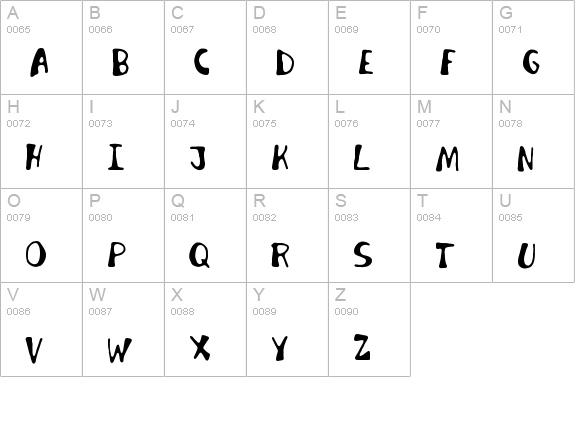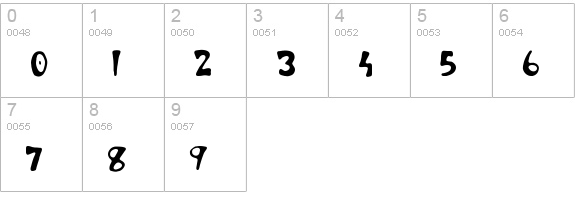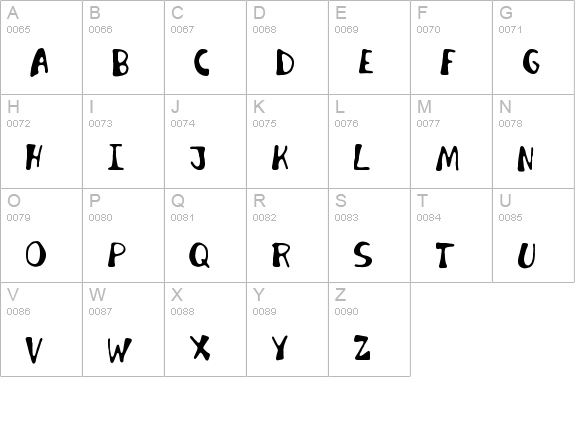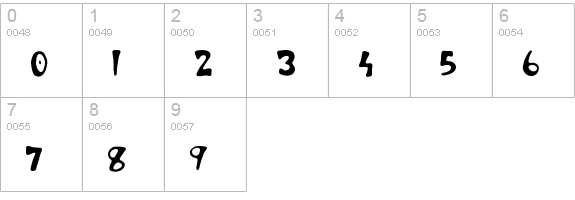
Invader Candy Font Details
Invader Candy font is a whimsical and playful typeface that is perfect for adding a touch of fun to any design project. With its charming and quirky letterforms, this font captures the essence of a child's imagination and brings it to life on the page. The Invader Candy font is free to download, making it accessible to designers and creatives of all levels. Whether you're working on a poster, a website, or a social media graphic, this font will add a delightful and eye-catching element to your design. The characters of Invader Candy font are bold and vibrant, with a unique twist on traditional letterforms. Each letter has a whimsical touch, making it stand out from the crowd and adding a touch of uniqueness to your designs. With its wide range of characters, Invader Candy font is versatile and can be used for a variety of design purposes. From headlines to body text, this font will bring a sense of joy and playfulness to your projects. Downloading the Invader Candy font is a breeze. Simply visit FontsMarket.com and you can freely access this delightful font. With just a few clicks, you'll have this charming typeface at your fingertips, ready to bring a burst of sweetness to your designs. So why wait? Download the Invader Candy font today and let your creativity soar. Whether you're designing for a children's book, a birthday invitation, or a website, this font will add a touch of whimsy and charm that is sure to captivate your audience.